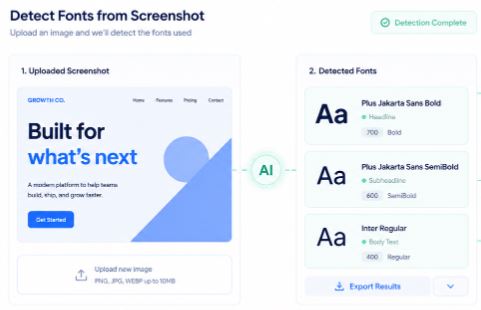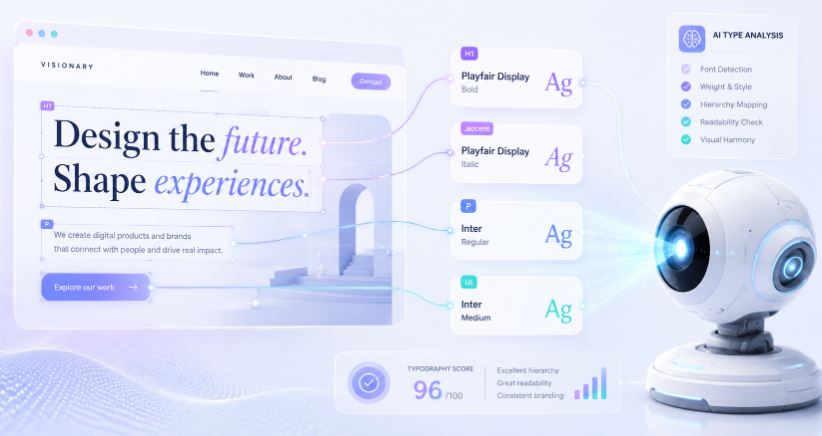
Find Web Font From Any Image in Seconds
Find web font styles instantly from screenshots and images using AI-powered font detection that removes guesswork completely.
To find web font styles from an image, upload a screenshot containing the text to an AI-powered font finder like Find Font AI. The tool analyzes letter shapes, spacing, curves, and typography patterns to identify matching or similar fonts in seconds.
There’s a very specific kind of frustration that only designers, developers, marketers, and curious internet people understand.
You see a perfect font on a website. Maybe it’s in a landing page headline. Maybe it’s hidden inside a product ad that somehow feels more expensive because the typography is sharp and confident. Suddenly you need that font. Not tomorrow. Right now.
So you inspect the page.
Nothing obvious.
You zoom in.
Still nothing.
Then begins the spiral: browser extensions, guessing games, endless font galleries that somehow all look almost identical. Helvetica pretending to be Inter. Inter pretending to be SF Pro. A geometric sans trying desperately to impersonate another geometric sans.
And somewhere in the middle of that rabbit hole, you realize something strange.
Finding a web font should not feel like digital archaeology.
That’s exactly why tools like Find Font AI exist. Not to overwhelm you with typography theory. Not to turn font discovery into homework. Just to answer the question fast:
“What font is this?”
Oddly enough, that tiny question sits underneath branding, conversion rates, readability, trust, and even emotional perception online.
Fonts are not decoration anymore. They are interface psychology.
And once you notice that, you start seeing typography everywhere.
Why People Need to Find Web Font Styles
Most people do not wake up thinking about typography.
They wake up trying to finish a project.
A startup founder wants their homepage to feel “premium.” A developer wants consistency between a Figma mockup and production. A YouTube thumbnail designer wants stronger click-through rates. An ecommerce brand wants trust before the visitor even reads the first sentence.
Fonts quietly shape all of it.
According to typography research from the Nielsen Norman Group, readability and visual hierarchy strongly influence how users perceive credibility online.
That sounds technical until you experience it yourself.
Open two identical websites with different fonts. One feels polished. The other feels accidental.
Same content. Different emotional reaction.
That is why people constantly search for ways to find web font styles from screenshots, website images, logos, banners, PDFs, or even social media posts.
Not because fonts are trendy.
Because fonts change perception before words even begin.
The Old Way of Finding Fonts Was Weirdly Exhausting
For years, identifying fonts meant stitching together partial clues like a detective working with blurry evidence.
You would:
• Inspect source code
• Search CSS manually
• Compare letters one by one
• Browse giant font libraries
• Ask strangers in design forums
• Hope someone recognized the lowercase “g”
Sometimes it worked.
Often it didn’t.
Especially because modern websites rarely use simple typography stacks anymore. Variable fonts, modified glyphs, custom kerning, compressed spacing, SVG text rendering, everything became layered and messy.
And screenshots made it worse.
A compressed JPEG can distort typography enough to confuse traditional systems completely.
That’s where AI-based image analysis changed the experience.
Instead of matching fonts by simplistic rules, modern systems analyze visual patterns more like humans do: curves, stroke contrast, character width, terminal endings, spacing rhythm, and letter relationships.
In simple terms, the tool stops reading text as code and starts reading typography as shape.
That difference matters.
How AI Helps You Find Web Font Styles Faster
At first, I assumed AI font detection was probably exaggerated marketing.
Then I uploaded a blurry cropped screenshot into Find Font AI and watched it identify the typography almost instantly.
That moment felt strangely revealing.
The system was not “reading words.” It was interpreting design DNA.
The Process Is Surprisingly Simple
Step 1: Upload an Image
This can be:
• A website screenshot
• A social media graphic
• A logo
• A mobile app interface
• A PDF snippet
• An advertisement
• A YouTube thumbnail
Even imperfect screenshots can work because AI focuses on visual structures rather than exact pixels.
Step 2: AI Analyzes Typography Patterns
The engine scans:
• Letterforms
• Weight distribution
• Character spacing
• Curvature
• Serif construction
• Alignment behavior
• Finding web font styles manually is often frustrating and time-consuming.
• AI-powered image analysis dramatically improves font detection accuracy.
• Typography shapes trust, readability, and emotional perception online.
• Screenshots became the modern source of font discovery across the internet.
• Find Font AI helps users identify fonts from uploaded images within seconds.
• Clean screenshots with multiple visible letters improve matching accuracy.
• Fonts are not just visual choices. They influence how digital experiences feel.